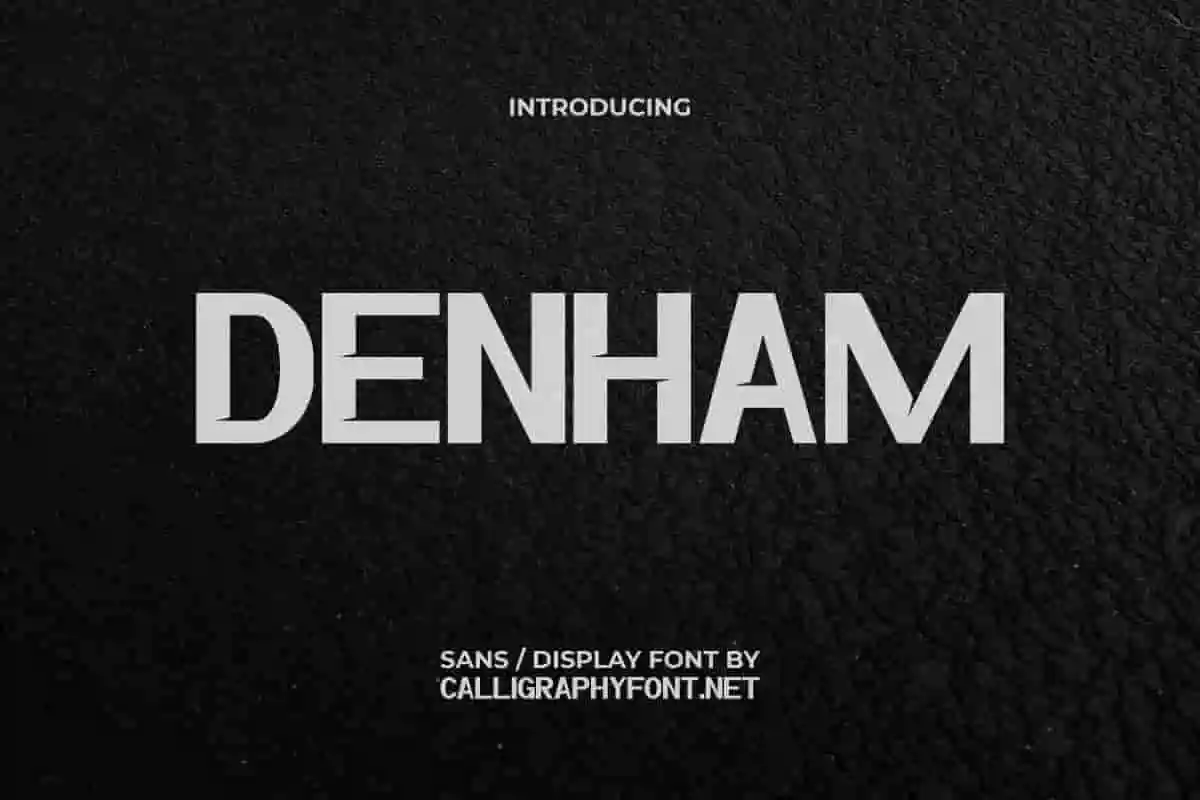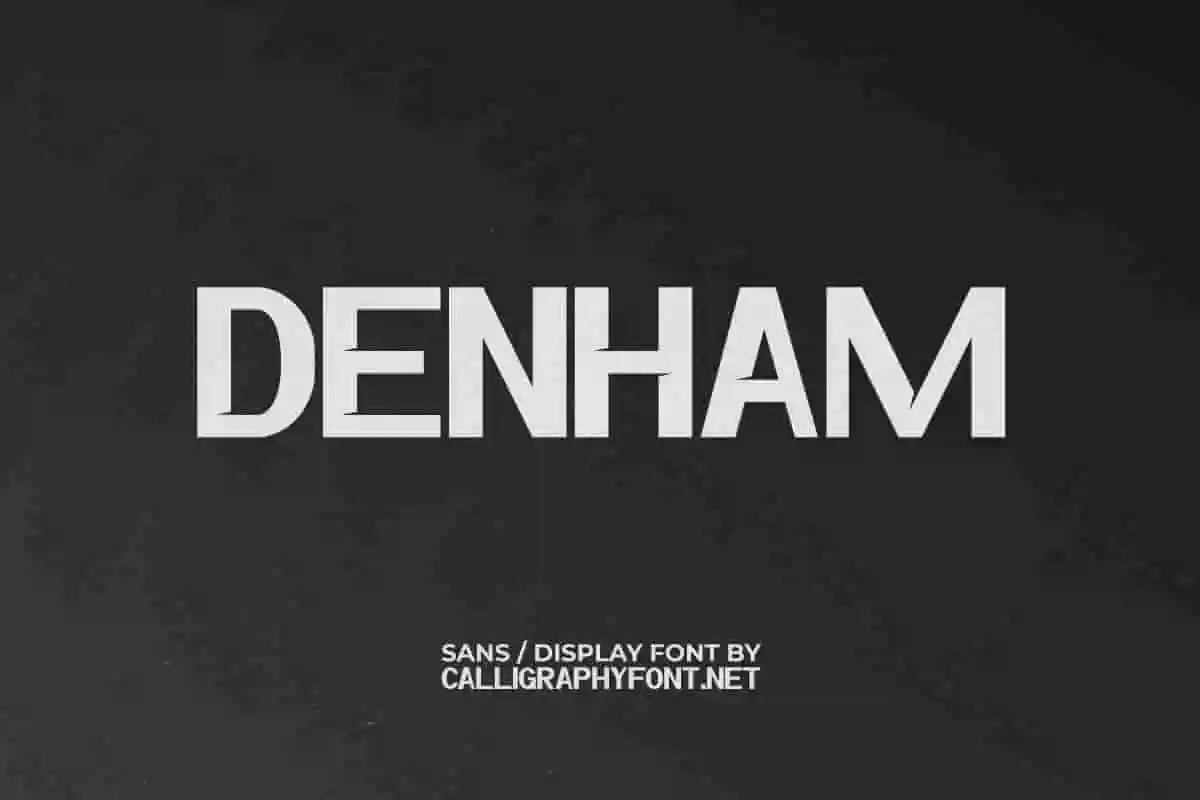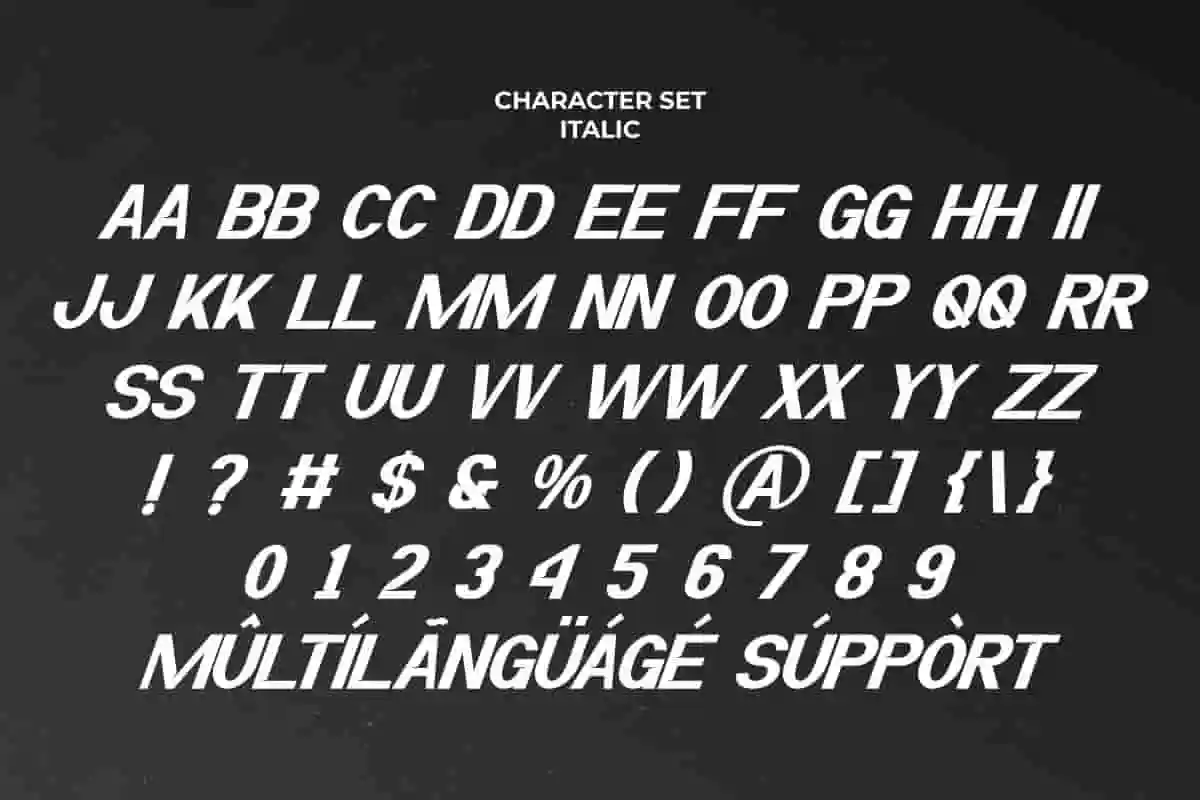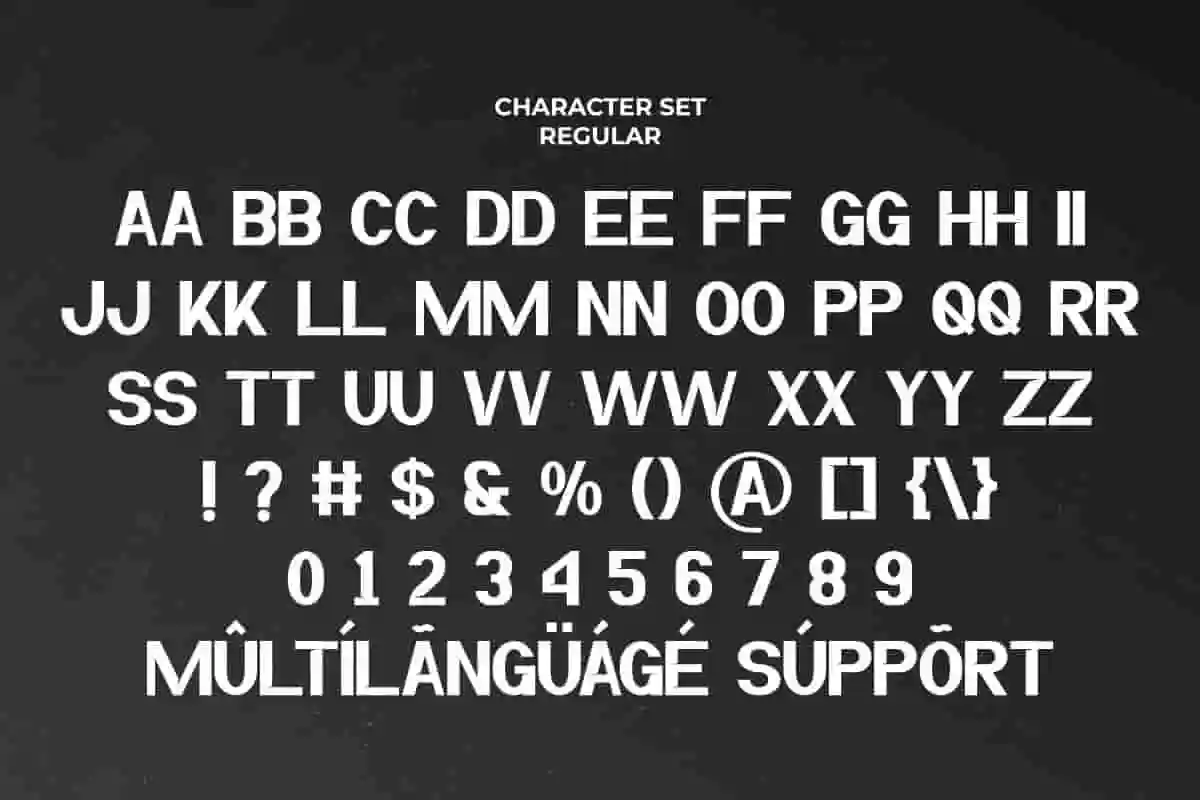
Denham Display Font
Denham Font is a modern strong sans serif display font by CalligraphyFonts.net. The style of this font are modern, sporty, strong, techno, etc. Download Denham Font for commercial use now!
Denham is a modern Display sans serif font family with two styles. The style of this font are modern, sporty, strong, techno, etc. Great for logo, brandings, headlines, products, signage etc. Denham Font come with unique characters that will make your designs standout. The font will be awesome for many industries including : entertainment, games, sports, techno, etc
Make your message impossible to ignore with Denham Display Font, a bold and attention-grabbing typeface designed for high-impact visuals. With its strong lines, geometric precision, and contemporary style, Denham is perfect for projects that demand a confident and modern look.
Every letter in Denham Display Font is built to capture attention and convey confidence. Whether you want to project speed, strength, or cutting-edge style, Denham will help your designs deliver the message loud and clear.
If your project needs a font that’s bold, stylish, and unforgettable, Denham Display Font is the perfect choice.